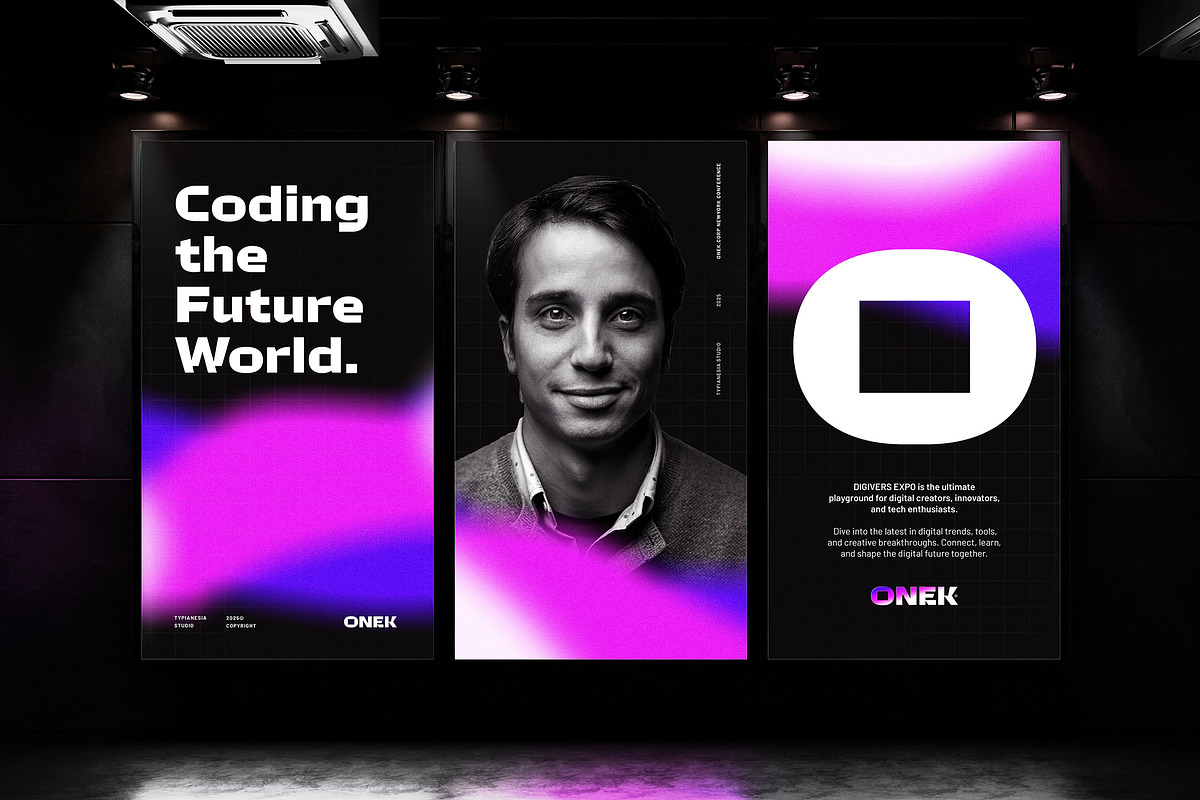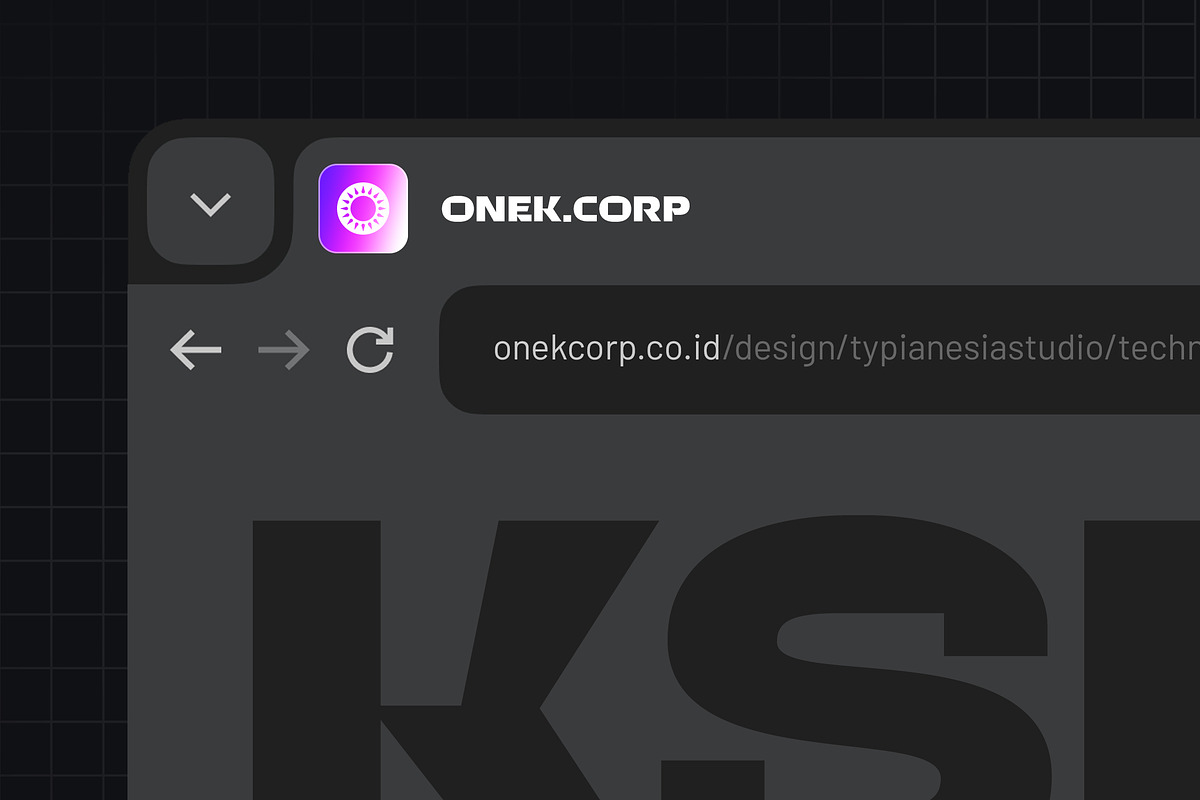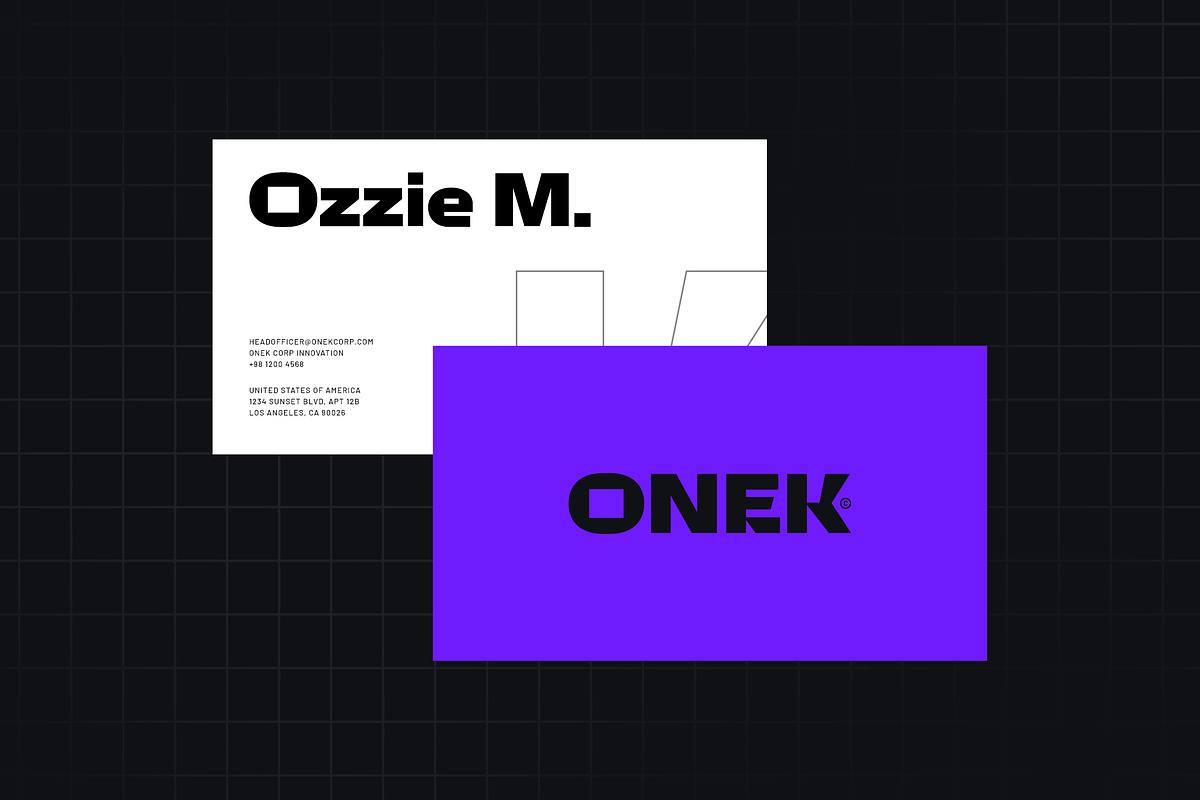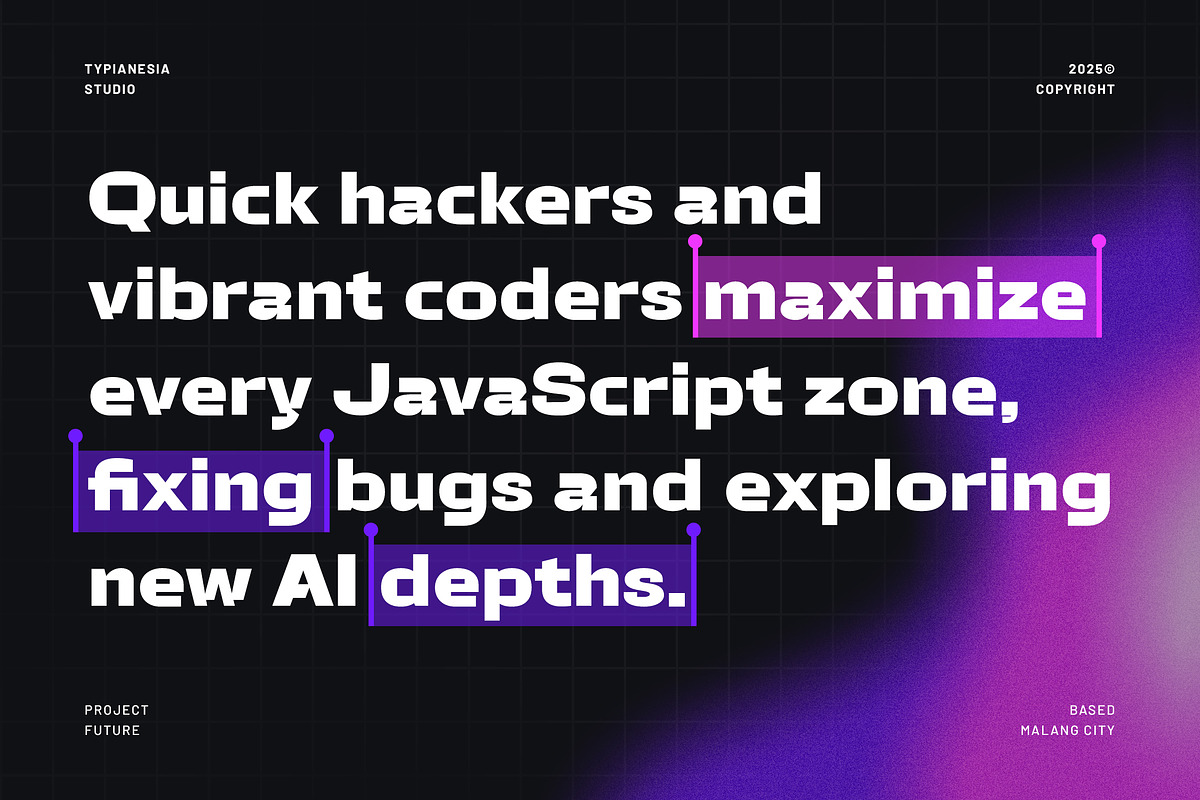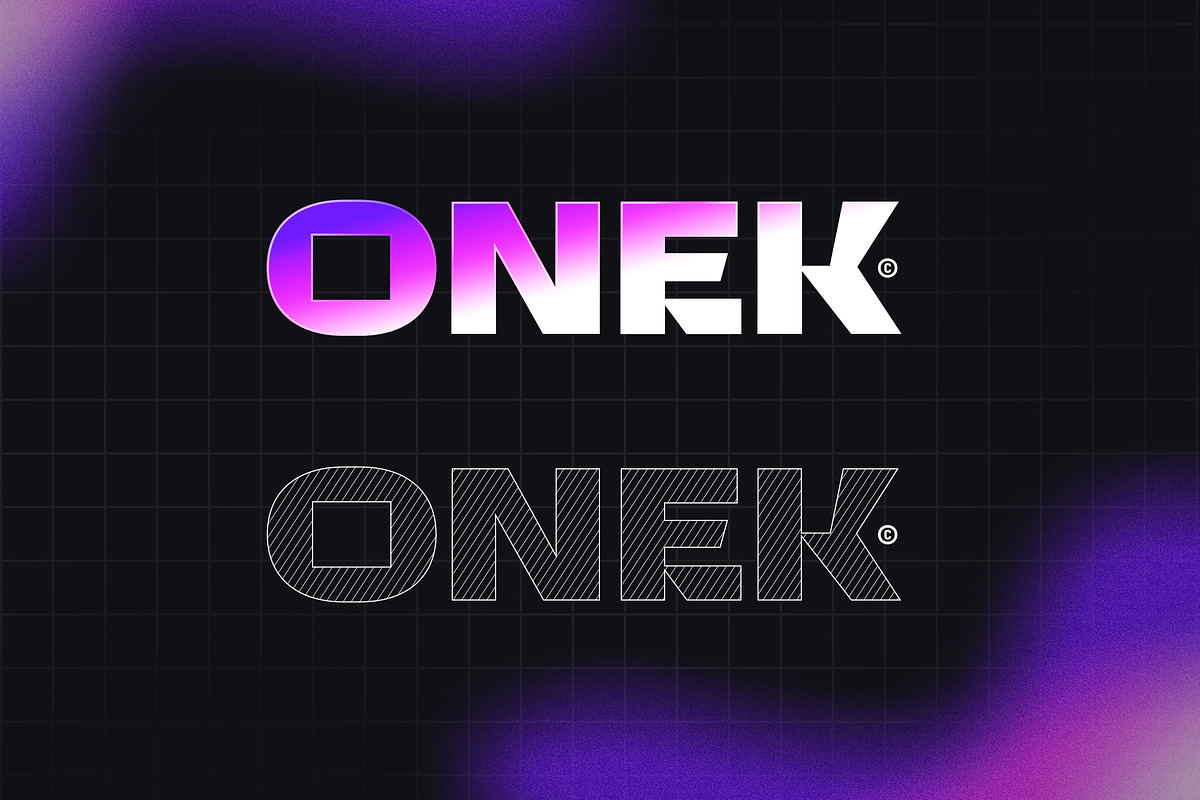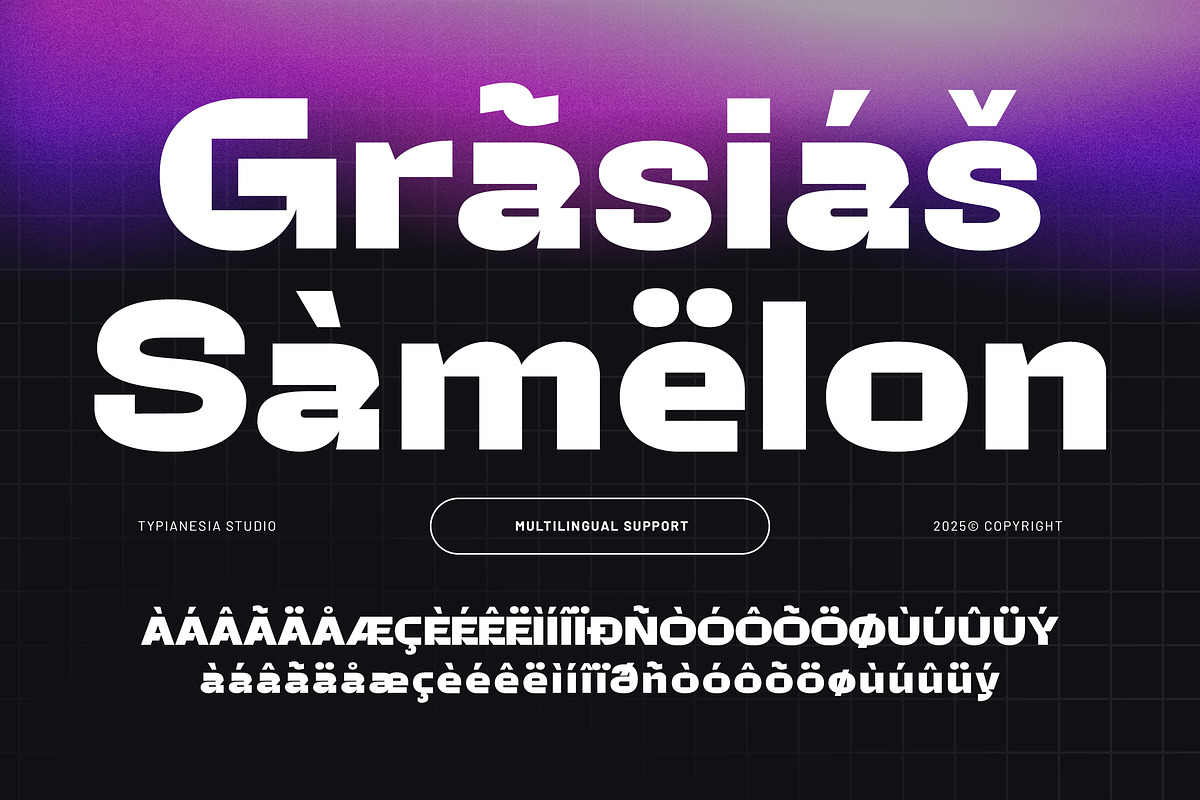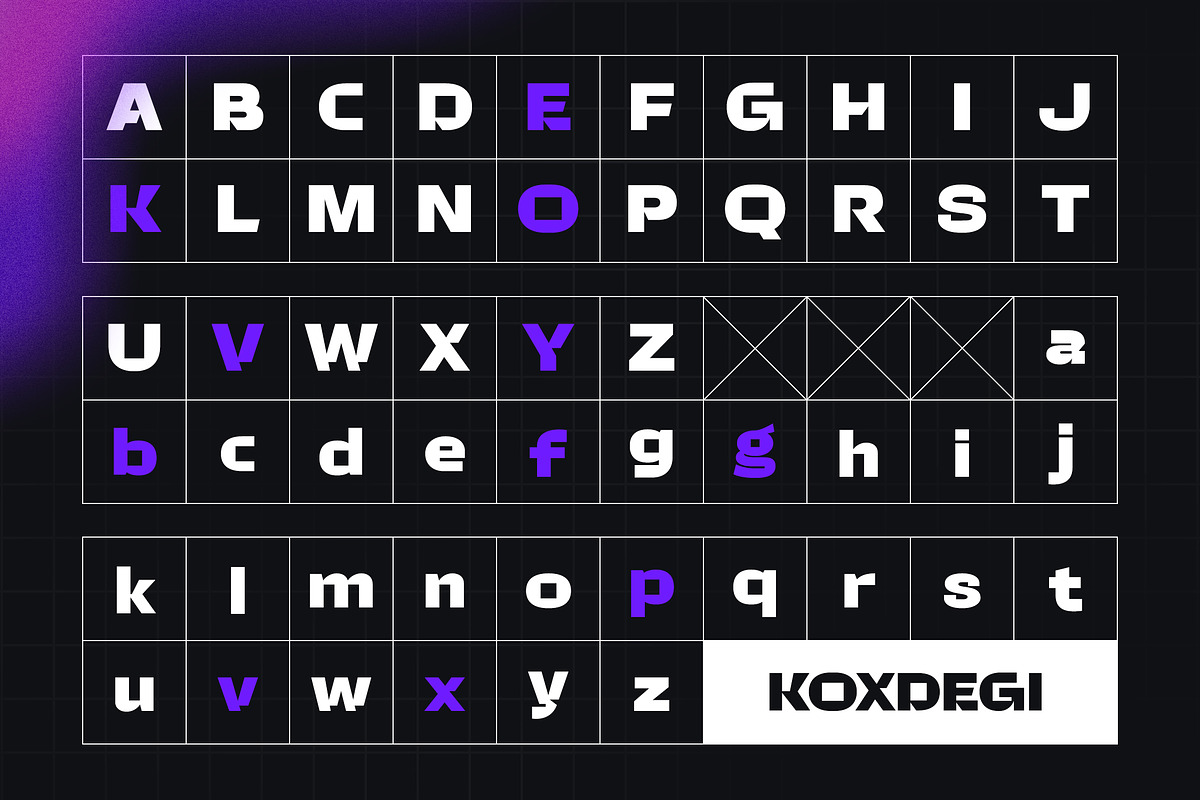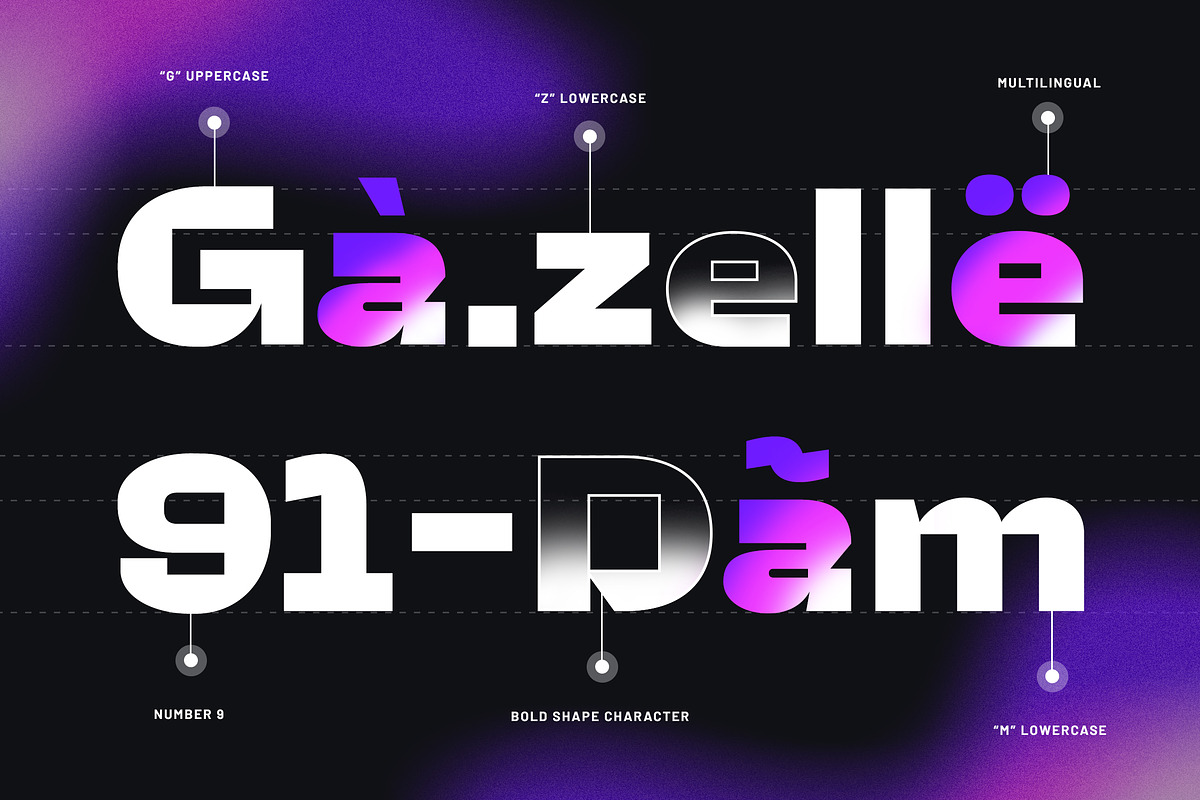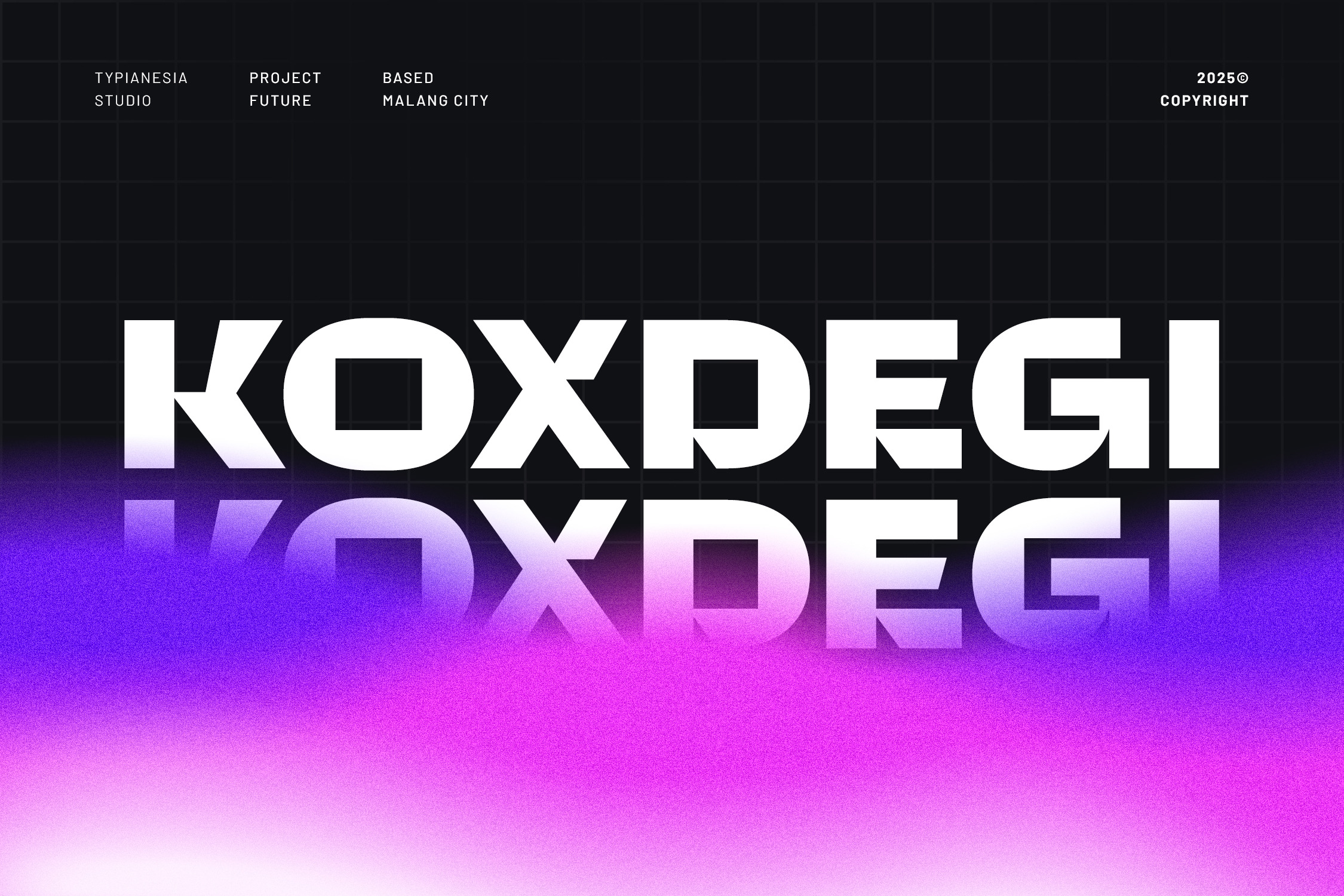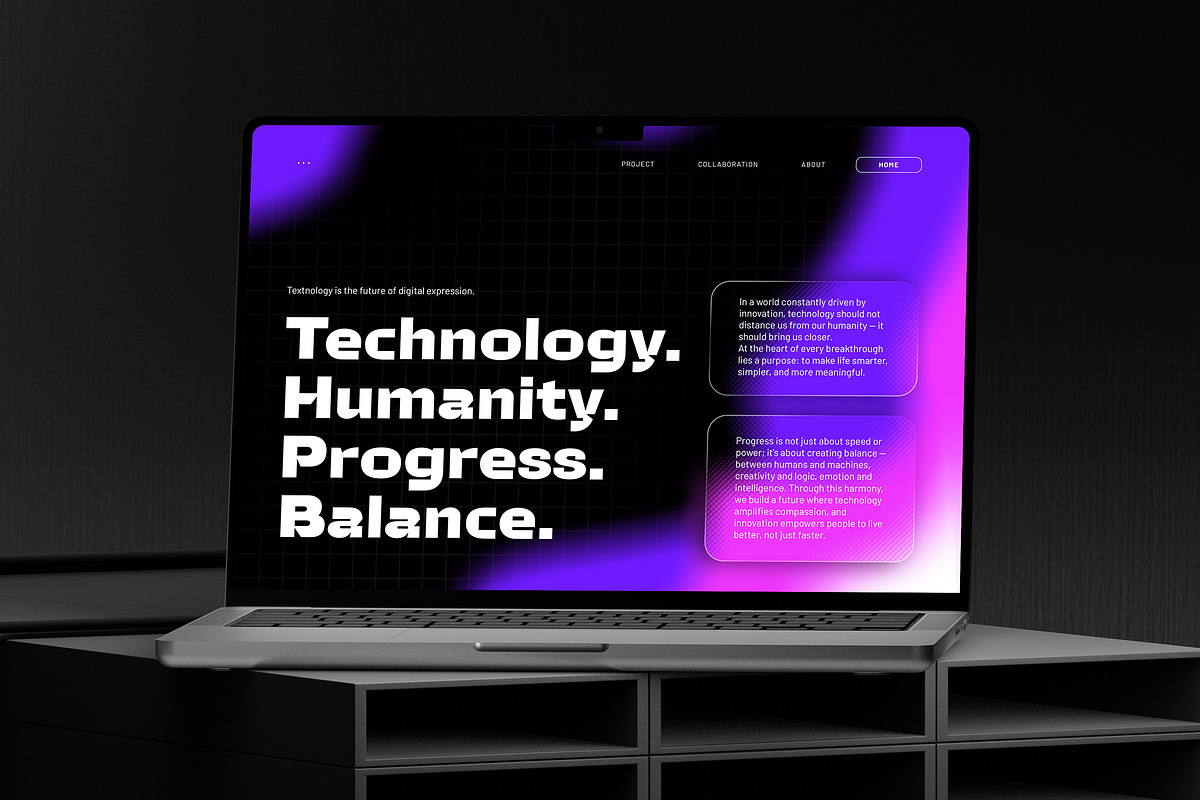
Koxdegi - Modern Futuristic Font
Koxdegi - Modern Futuristic Logo Font - Digital Sci-fi Cyberpunk Tech Display Font
Koxdegi – Modern Futuristic Logo Font is a bold and innovative typeface inspired by sci-fi aesthetics, cyberpunk culture, and advanced technology, featuring clean geometric shapes, sharp letterforms, and a powerful sans-serif structure that makes it perfect for tech branding, gaming titles, logo design, digital interfaces, modern posters, corporate identities, sci-fi themed visuals and any project that requires a touch of high-impact futuristic look, Koxdegi is designed for creators who want to bring bold digital energy into their visual identity, elevates your project with its modern and forceful personality.